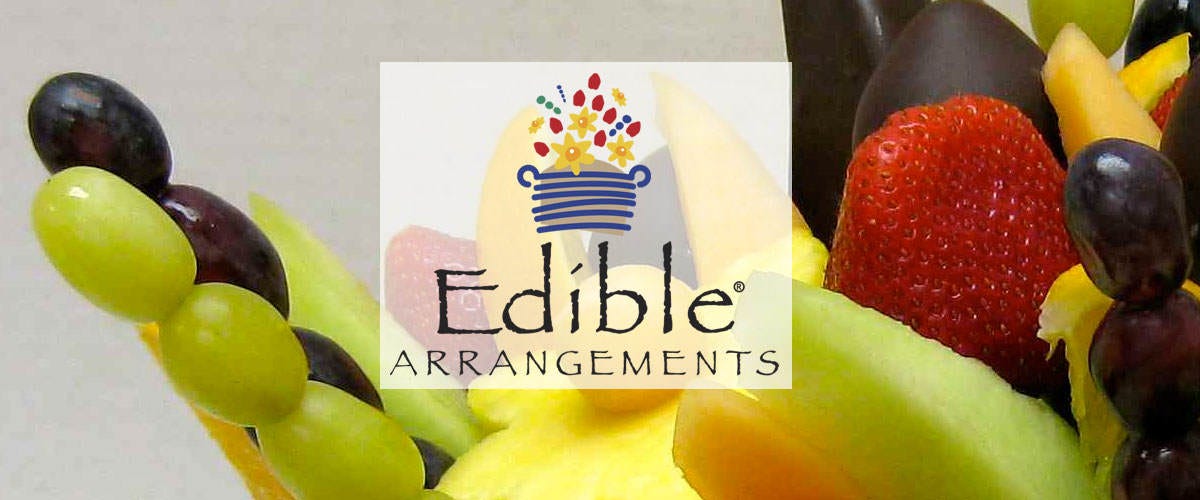
Seeing Papyrus get dragged on SNL inspired me to write this friendly guide detailing the only appropriate situations in which to use fonts that everyone hates.
But some complained that I’d skipped some of the most loathed fonts. And I didn’t actually include Papyrus, presuming that everyone knew already. Well, in case you missed the memo, here’s the only establishment that has the OK to use Papyrus on signage:
But you knew that, right? Anyway, here are the rest of the oft-disliked fonts and the only establishments and/or situations in which it’s OK to use them.
Edwardian Script ITC
Braggadocio
Cloister Black
Herculanum
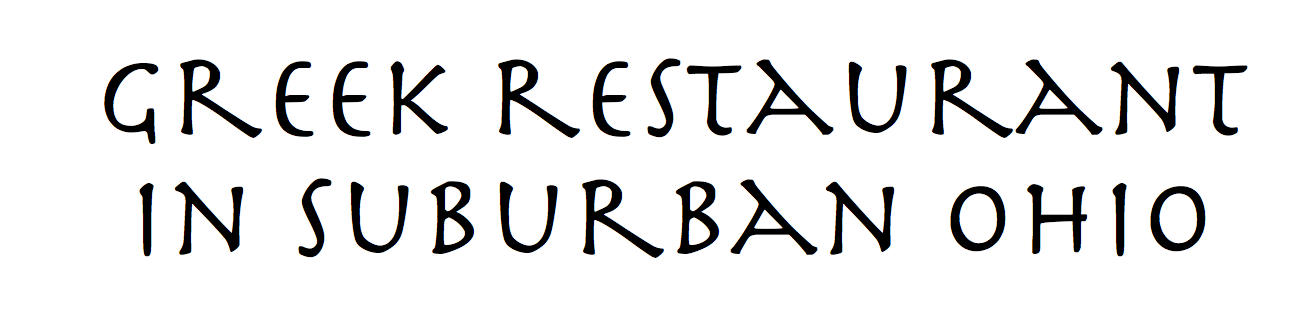
Bauhaus 93
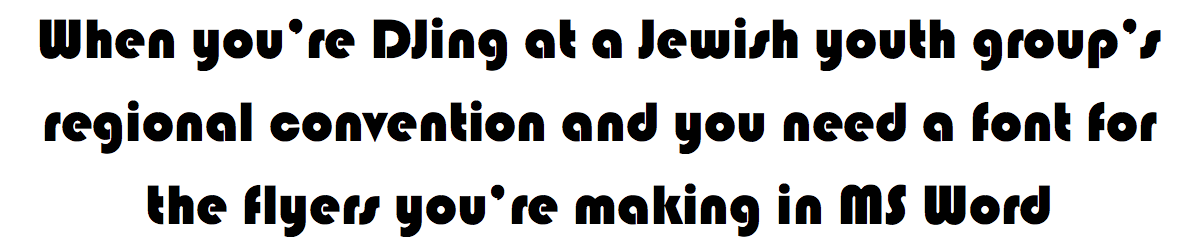
Lucida Blackletter
Curlz MT
Brush Script MT
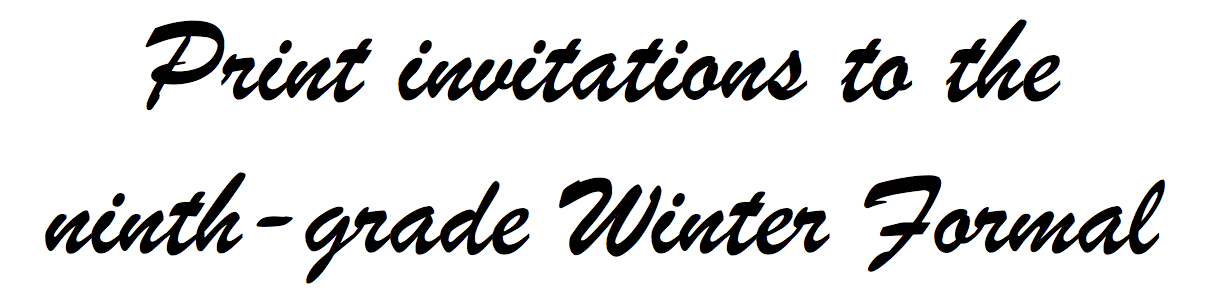
Harrington
Impact
Bradley Hand
Wingdings